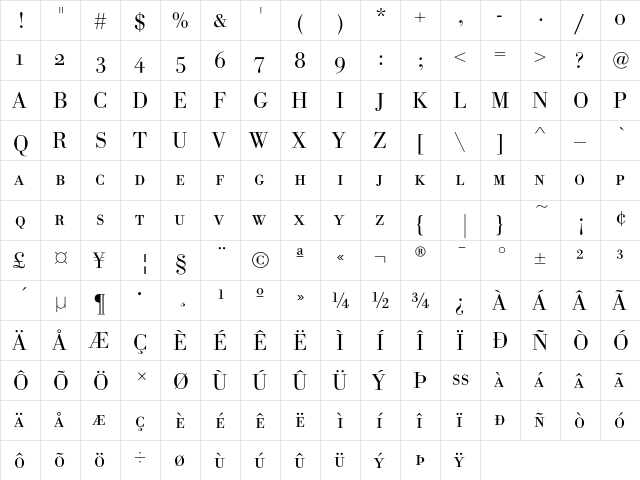
BodoniSCEF Light
Design Context for BodoniSCEF Typeface
BodoniSCEF is a composed and adaptable typeface that performs quietly and consistently across a wide range of design contexts. The delicate stroke weight brings airiness and refinement to layouts.
Pro Tip: Pair BodoniSCEF with a font of contrasting weight or personality to build a more expressive typographic hierarchy.